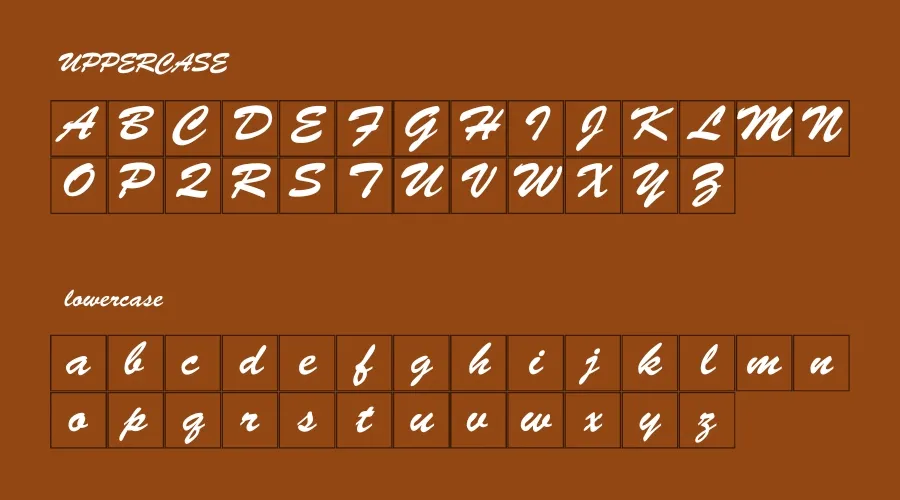
About Brush Script Font
Brush Script Font is designed by Robert E. Smith. This adorable typeface adds a unique design that is needed for any classy project. There are capital and lowercase letters, and digits, accessible in this beautiful typeface.
Furthermore, this lovely font is a fantastic option for creating graphics that are unique and attractive. You can use this font for your upcoming project. This unique style can be paired with chiller font. its lovely appearance makes it ideal for creating a unique project.
This is a clean and clear lettering style. The typeface has interesting glyphs which allow it to create beautiful designs. You can import this typeface into a CSS record for creating amazing website content.